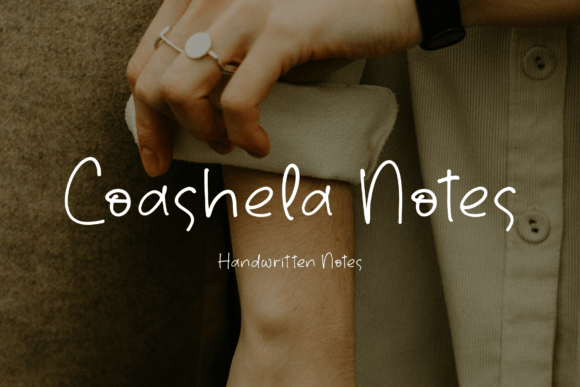
Unleash the beauty of elegance within your designs with Coashela Notes Font, an exquisite script font family that captivates with its handwritten charm. Created by the masterminds at Perspectype, Coashela Notes effortlessly blends sophistication with creativity, making it the perfect choice for your designs.
Indulge in the versatility of Coashela Notes as it seamlessly adapts to any project, from captivating logos and branding concepts to chic homeware creations and enticing product packaging. Its versatility empowers you to transform ordinary designs into extraordinary masterpieces, adding a touch of enchantment to mugs, posters, and shopping bags.
With Coashela Notes, you'll effortlessly create breathtaking quotes that resonate, inspiring invitations that invite, and greeting cards that warm hearts. Embellish your creations with stylish labels, effortlessly incorporate it into your photography, and create mesmerizing watermarks that leave an unforgettable mark.
Let Coashela Notes be your muse for special events, where it adds a touch of elegance and sophistication. Its enchanting handwritten style elevates any project, infusing it with a personal charm that will make it stand out from the crowd.
Coashela Notes is more than just a font; it's an invitation to express your creativity. Its beauty lies in its ability to transform the mundane into the magnificent, adding a touch of allure to your name cards and book covers.